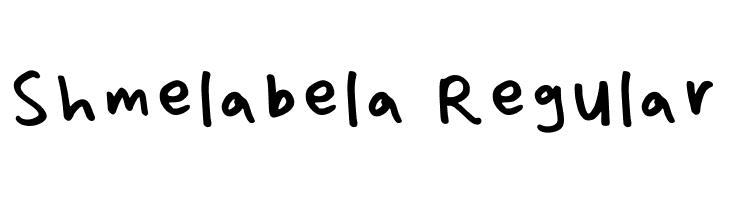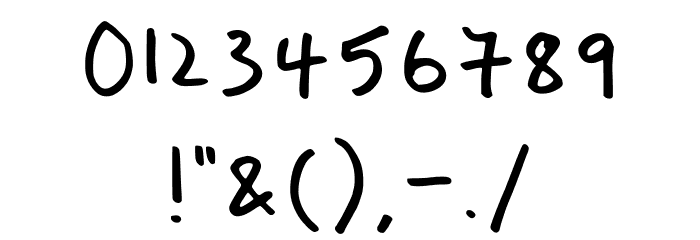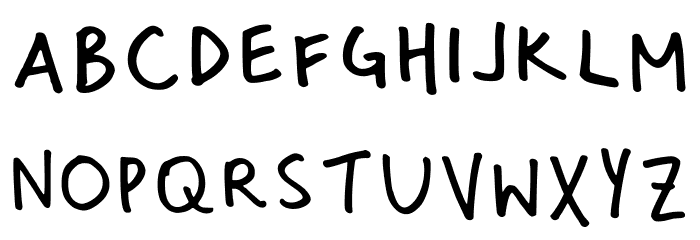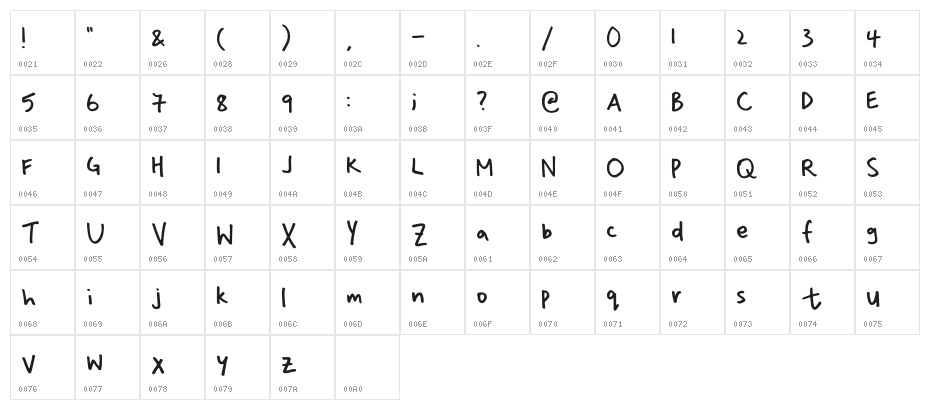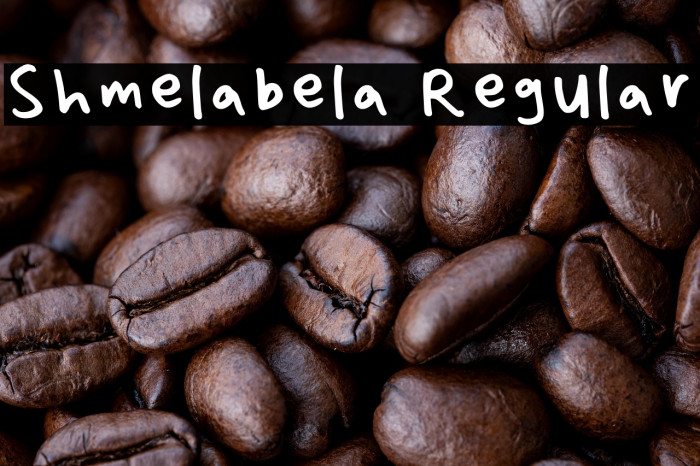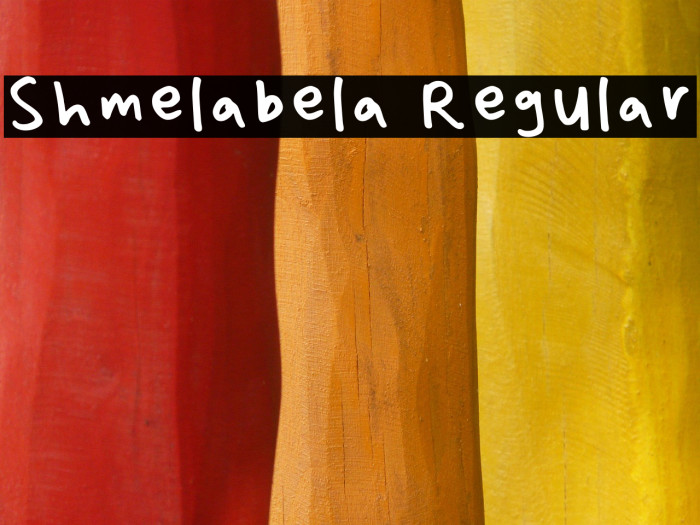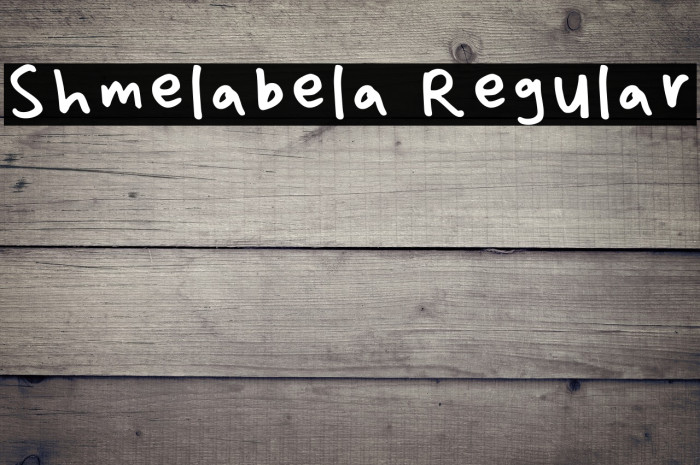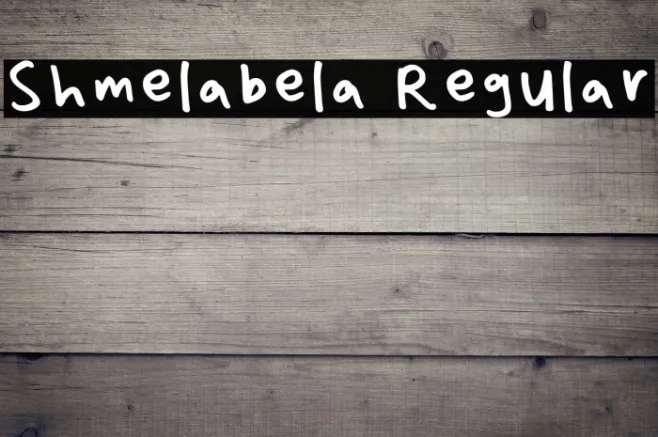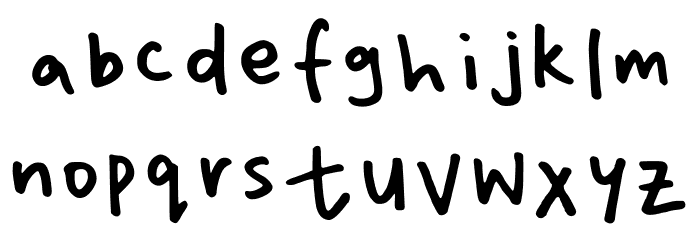
Shmelabela Regular Font
Shmelabela Regular Description
A playful, handwritten sans-serif font with irregular, organic letterforms and a casual, friendly appearance. The strokes are consistent in thickness, and the characters have a loose, informal structure.
| Overall Style | Playful, Informal, Casual |
| Use Case | Headlines, Posters, Greeting cards, Informal branding |
| Proposed Projects | ChildrenΓ’β¬β’s books, greeting cards, informal posters, educational materials, playful branding. |